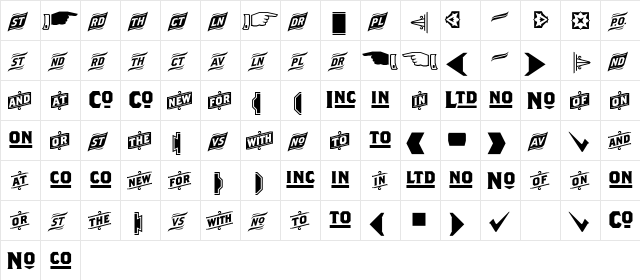
BrothersWordLogos Roman
Design Context for BrothersWordLogos Typeface
BrothersWordLogos takes a measured approach to typography — its balanced proportions and neutral character make it a reliable workhorse for both digital and print work.